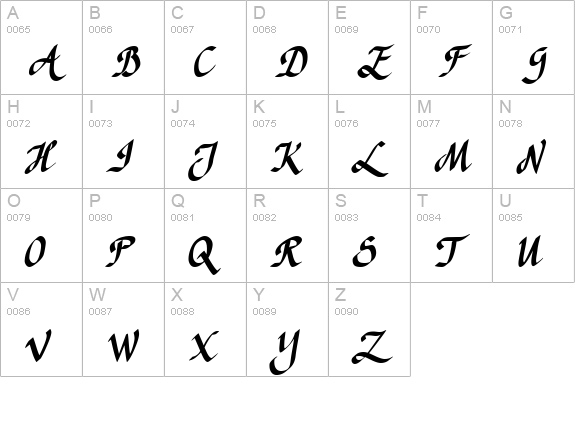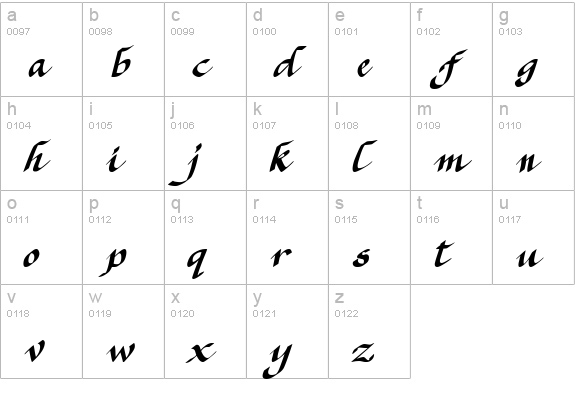
CK Calligraphy Font Details
Introducing CK Calligraphy Font, a stunning and elegant script typeface perfect for adding a touch of sophistication to your projects. This font features beautifully handcrafted characters with smooth curves and stylish flourishes, making it ideal for invitations, wedding stationery, branding, and more. The CK Calligraphy Font is versatile and can be used for a wide range of design projects. Whether you're creating a romantic wedding invitation or a stylish logo, this font will bring a touch of class and charm to your work. Best of all, the CK Calligraphy Font is available for free download at FontsMarket.com, making it accessible to everyone who wants to add a touch of elegance to their designs. Don't miss out on this opportunity to elevate your projects with this beautiful and timeless font. Download CK Calligraphy Font today and let your creativity shine!